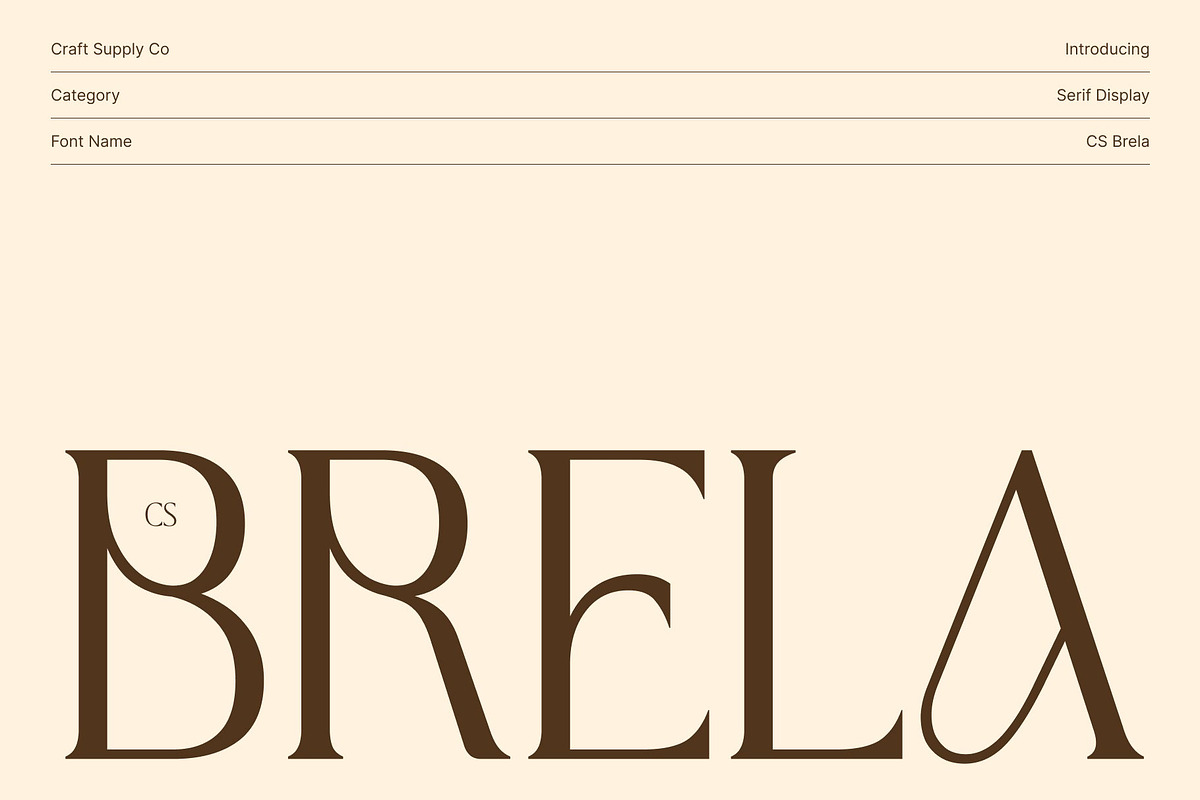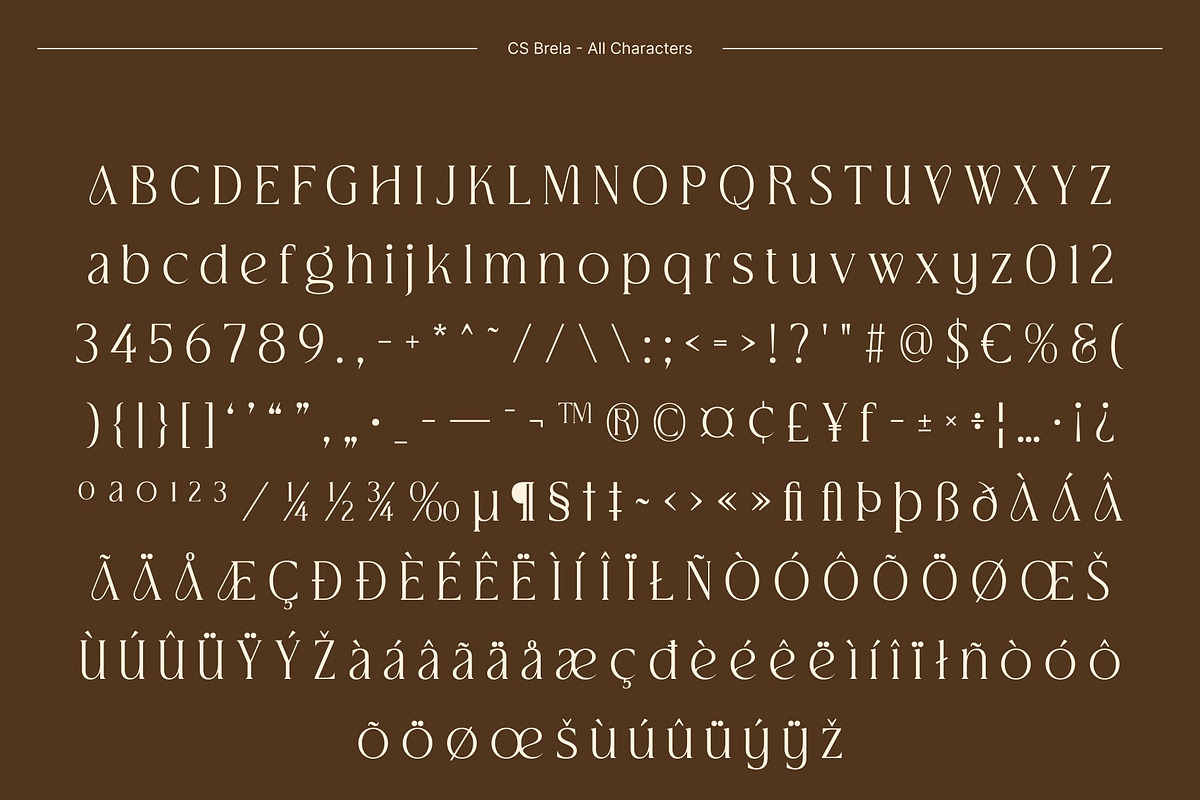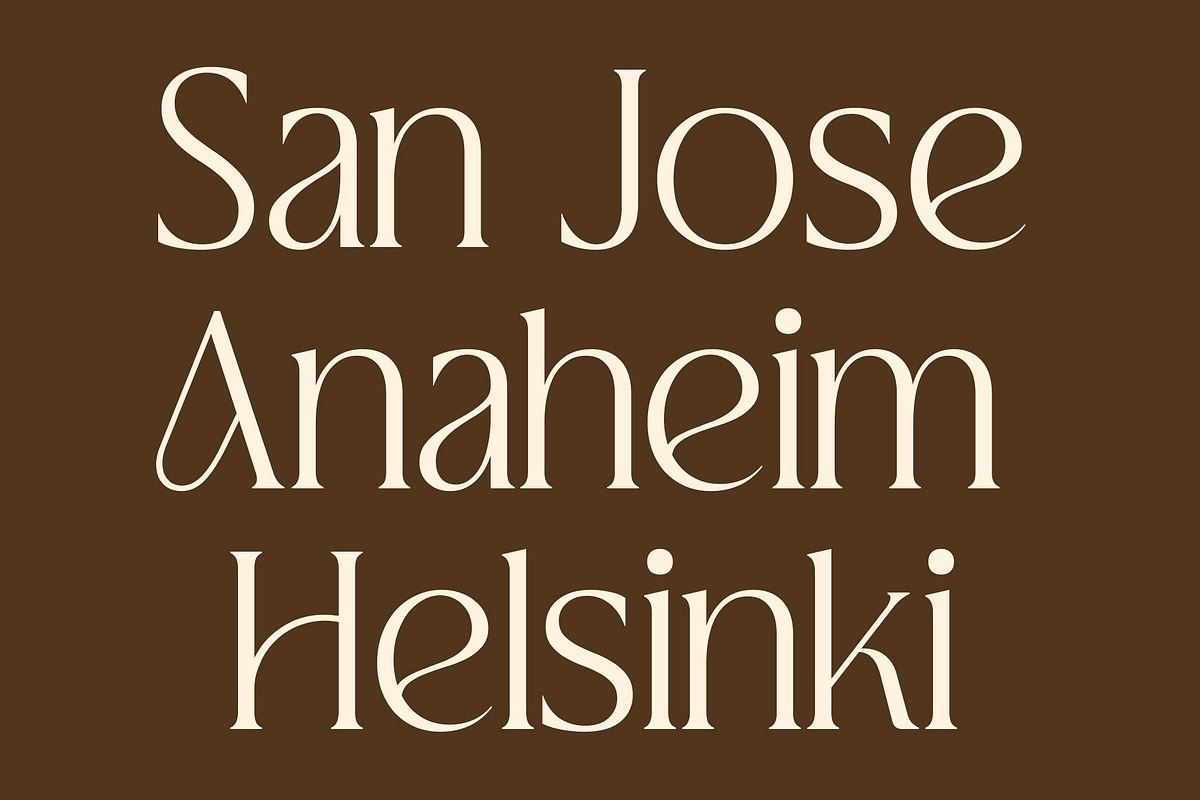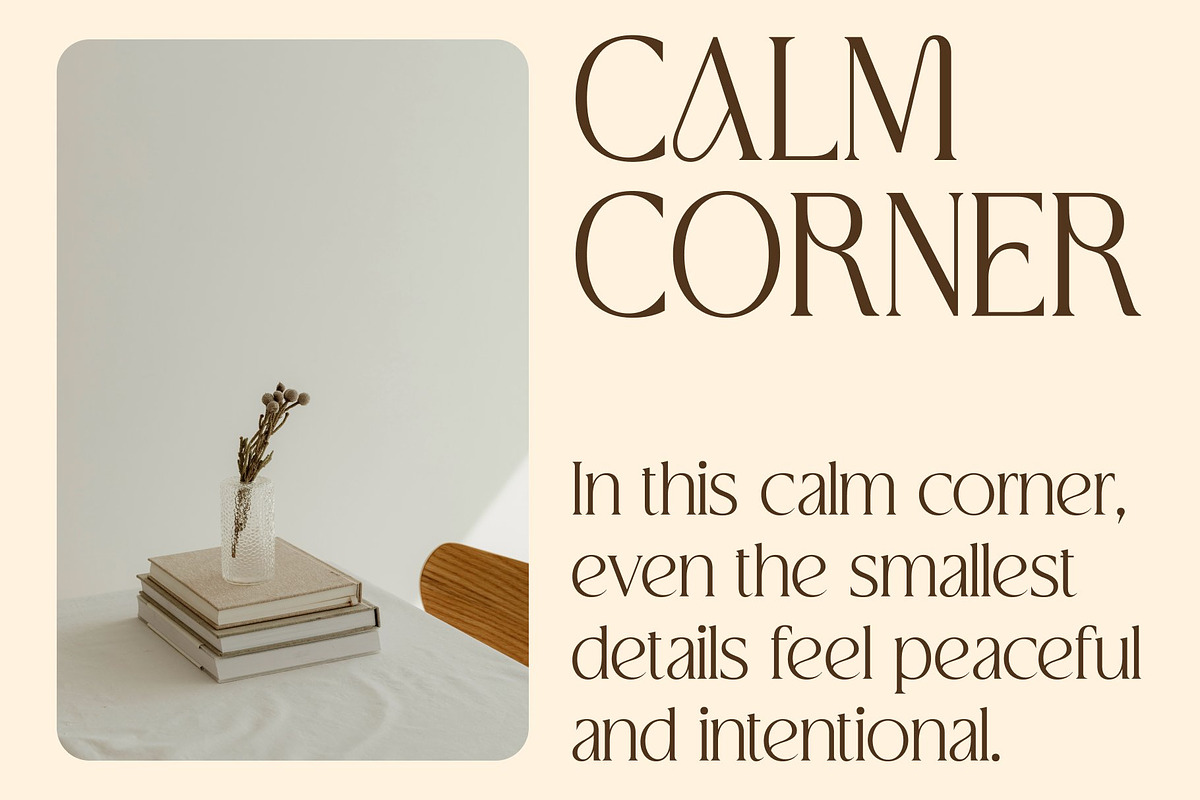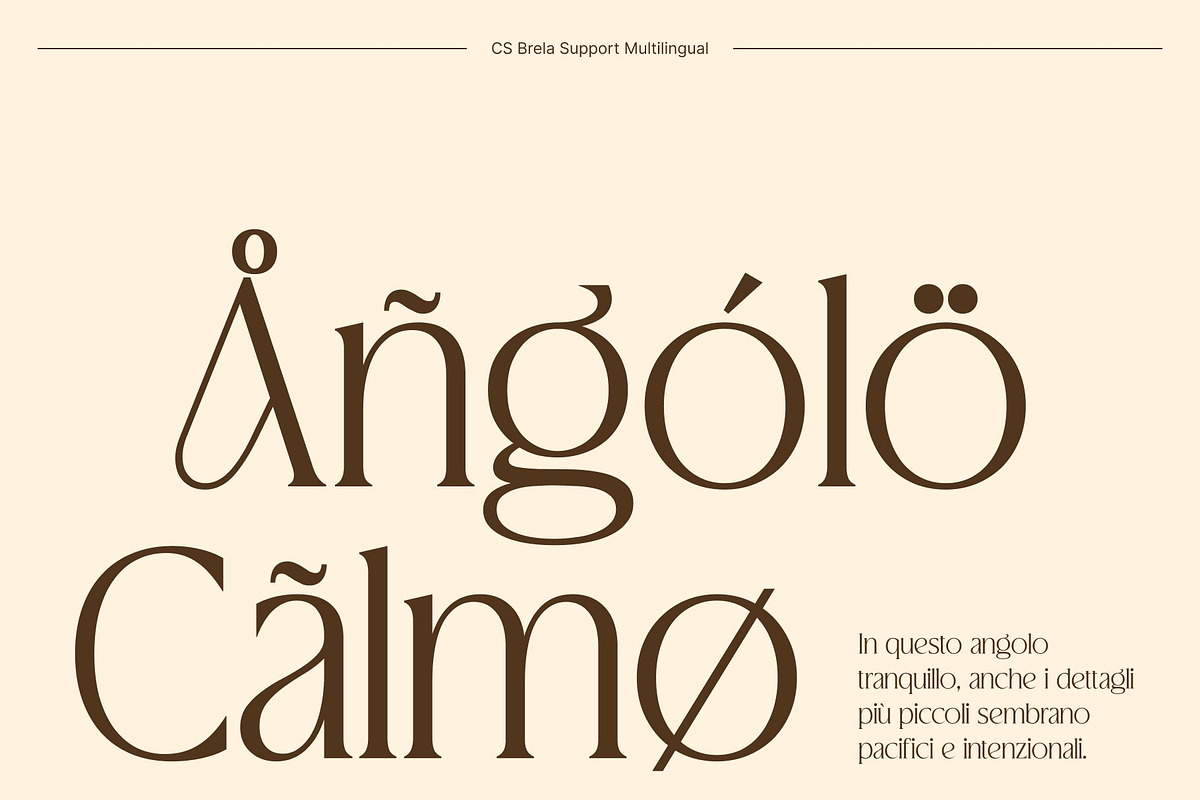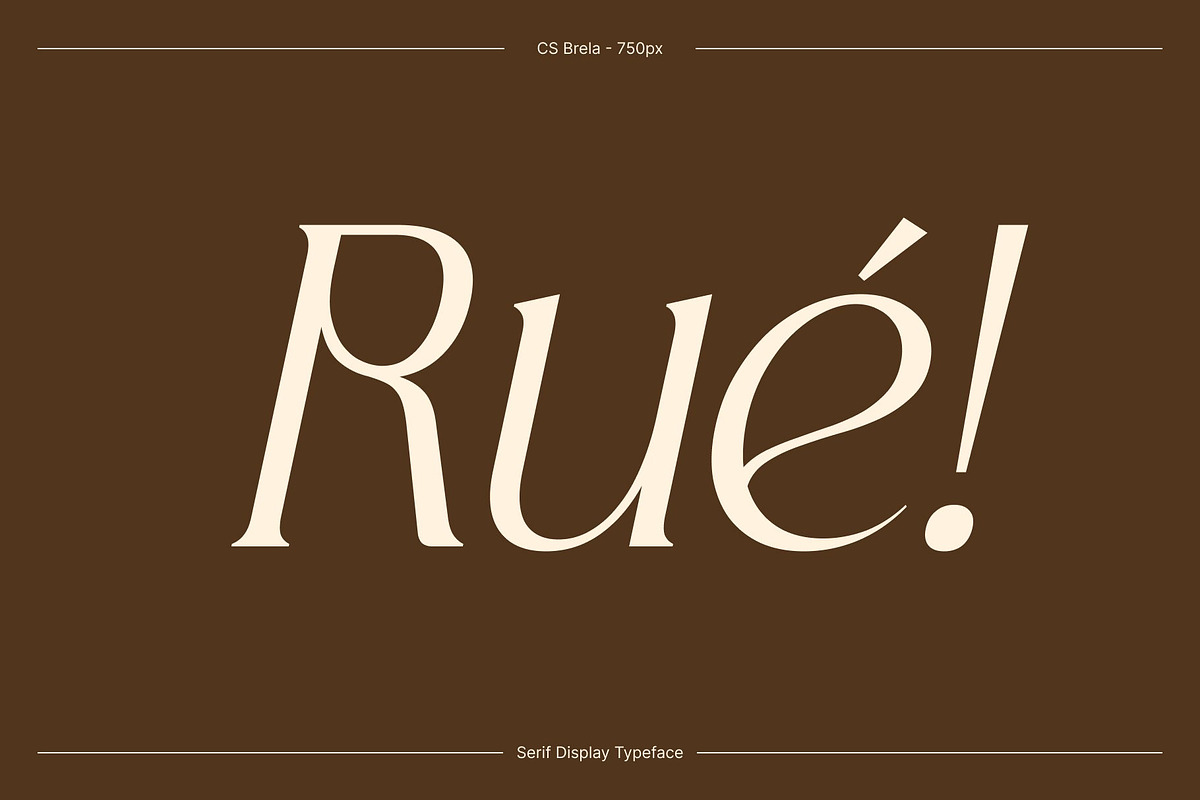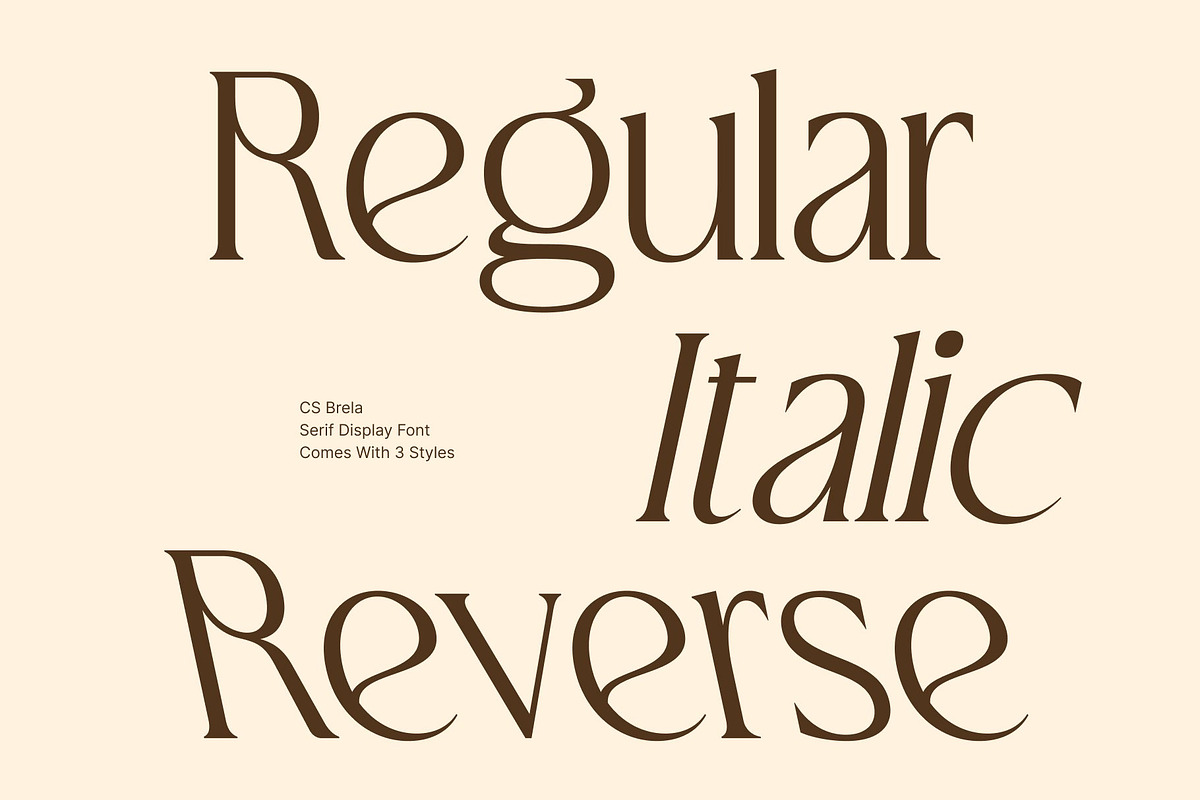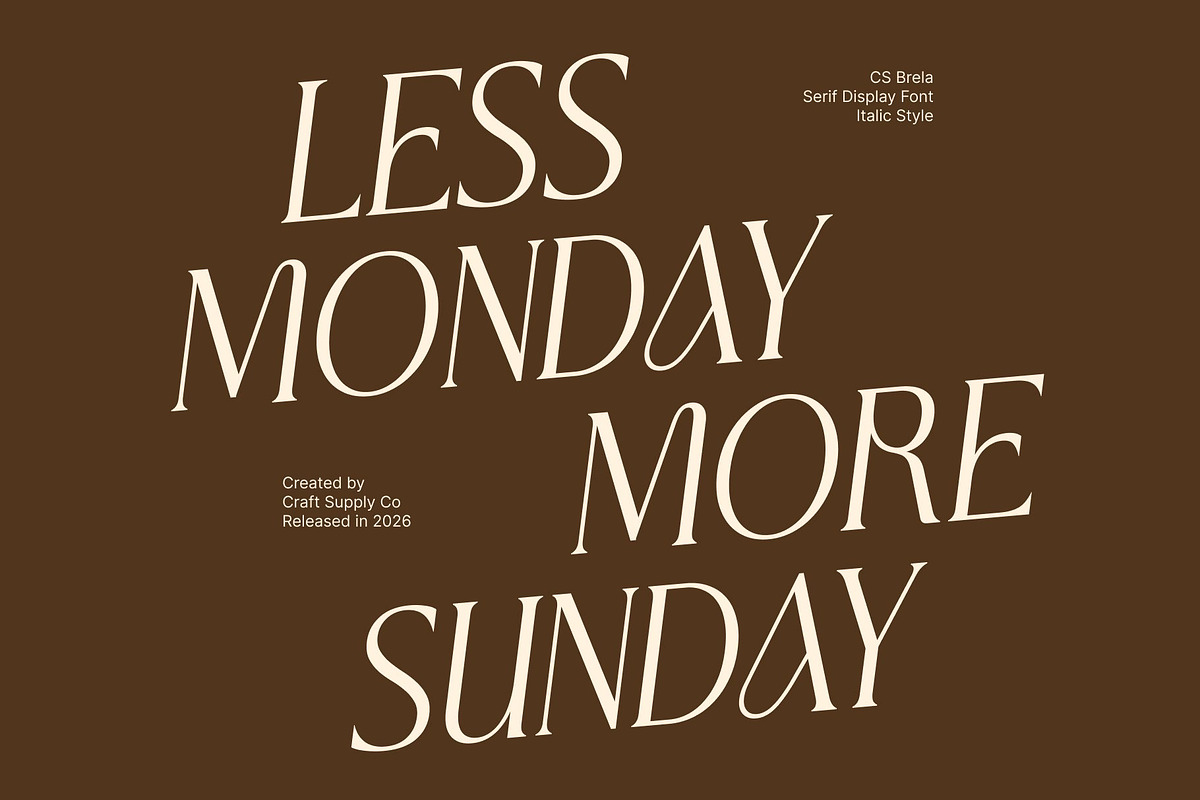
CS Brela – Elegant Serif Font
CS Brela – Elegant Serif with Playful Sophistication
Elegant Serif with Casual Charm This is an elegant serif font designed with simple, well-balanced letter shapes that emphasize clarity and refinement. Its clean structure ensures high legibility, while subtle design nuances give it a relaxed and approachable personality. This combination creates a serif that feels elegant without being overly formal, making it ideal for modern creative needs.
Playful Ligatures for Visual Interest One of the defining features of this font is its playful ligatures. These carefully crafted connections add character and charm to the typography, bringing a sense of movement and creativity to the text. The ligatures enrich visual rhythm without disrupting readability, allowing designers to create layouts that feel both stylish and expressive.
Simple Forms with Refined Elegance This fonts simplicity is its strength. The straightforward letterforms provide a timeless foundation, while the elegant serif details elevate the overall appearance. This balance between simplicity and sophistication makes the font versatile and easy to pair with other design elements, from minimal layouts to more decorative compositions.
Perfect for Fashion and Luxury Branding With its casual elegance and refined presence, this font is perfectly suited for fashion branding, luxury or elegant social media designs, logos, and posters. It delivers a graceful, fashionable tone that feels modern and tasteful, helping brands communicate elegance, creativity, and confidence with clarity and style.
- CS Brela Regular
- CS Brela Italic
- CS Brela Reverse Italic